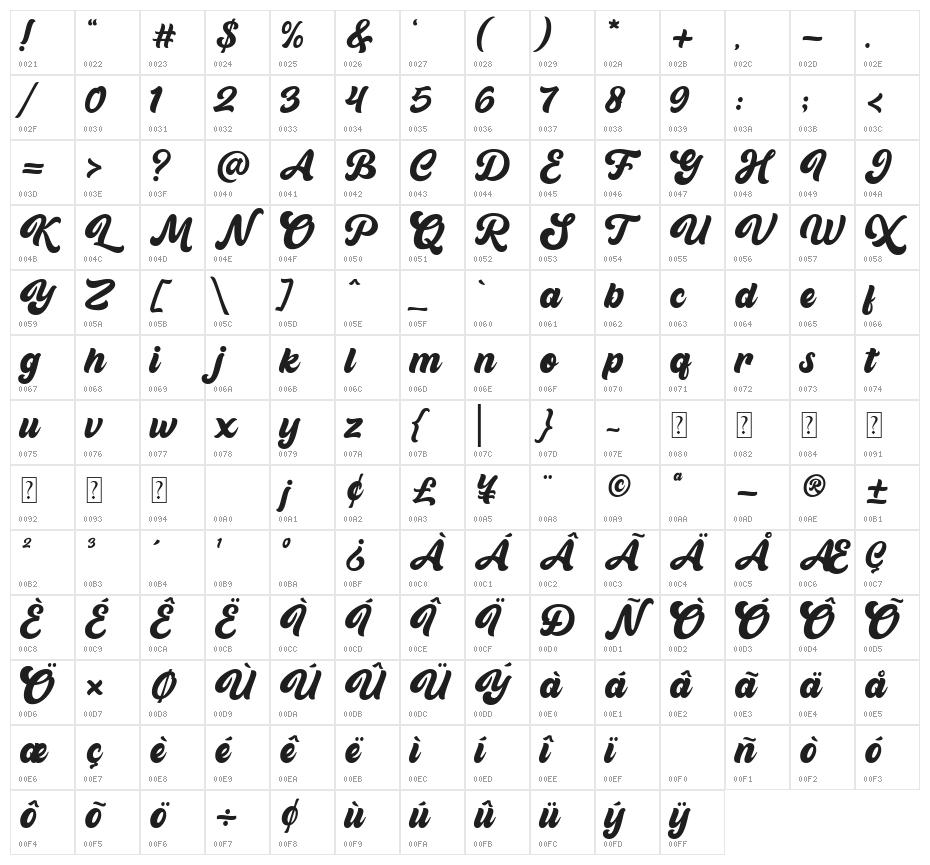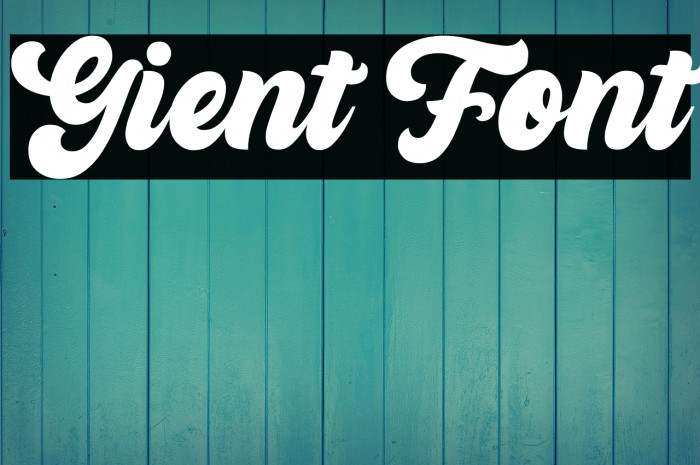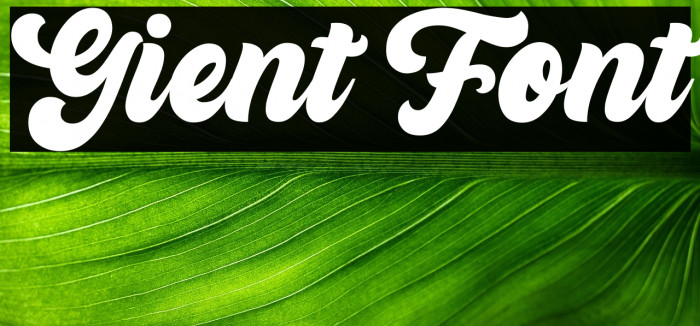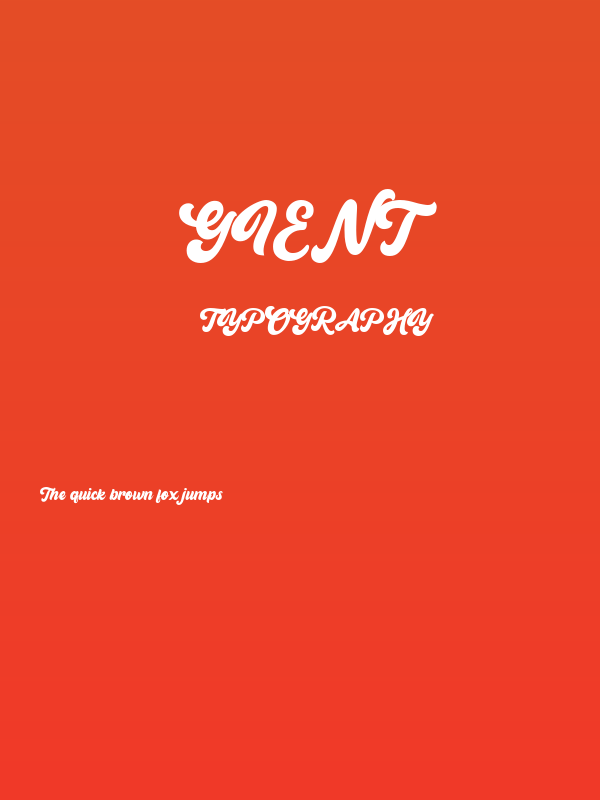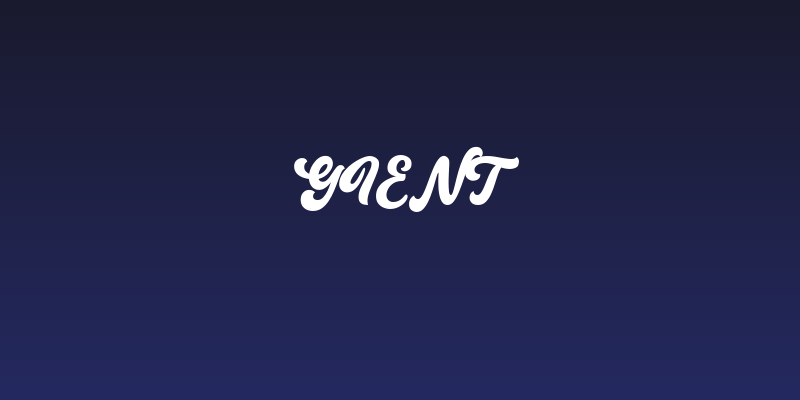
Gient Font
Gient Description
This font features a bold, cursive style with smooth, flowing lines that give it a dynamic and elegant appearance. The characters are interconnected, creating a sense of continuity and movement. The uppercase letters are slightly more ornate, with flourishes that add a touch of sophistication. The lowercase letters maintain a consistent flow, enhancing readability while retaining the decorative essence. Numbers and special characters are designed to match the overall aesthetic, ensuring uniformity across all elements. This font is ideal for projects that require a touch of elegance and flair.
Overall StyleElegant
Use CaseLogos, Invitations, Branding
Proposed ProjectsIdeal for wedding invitations, branding, logo design, and elegant packaging.